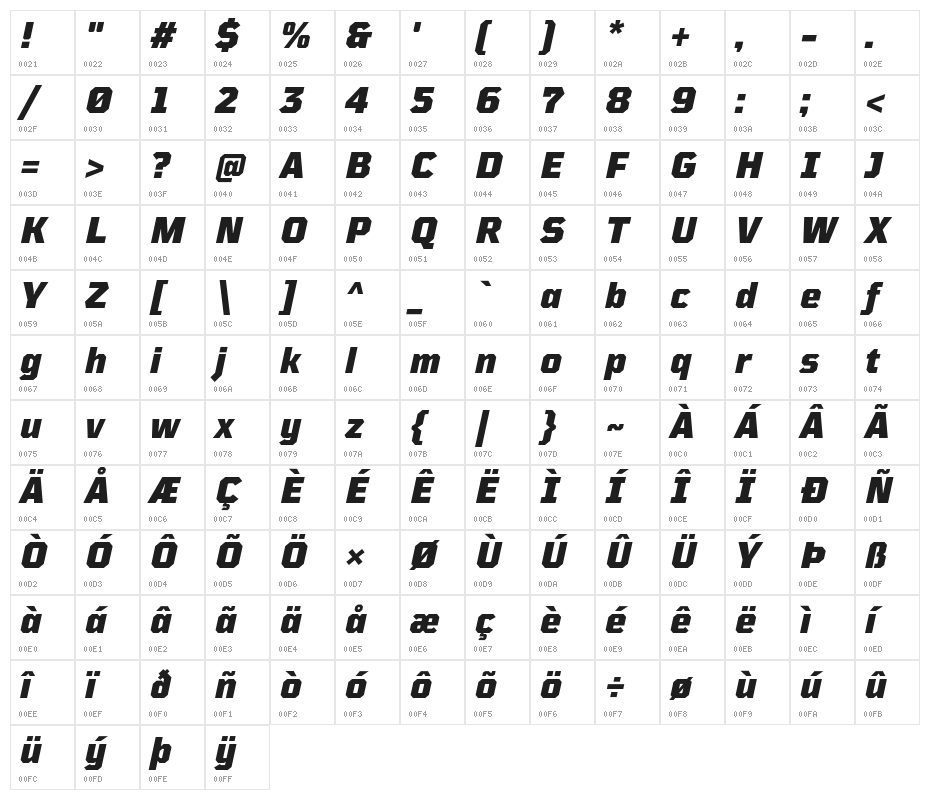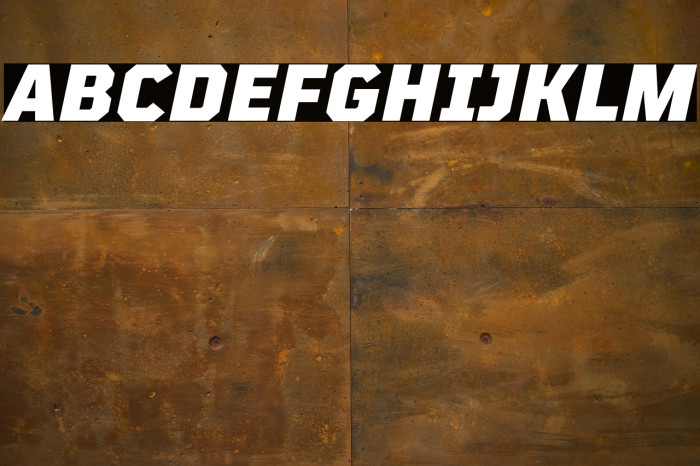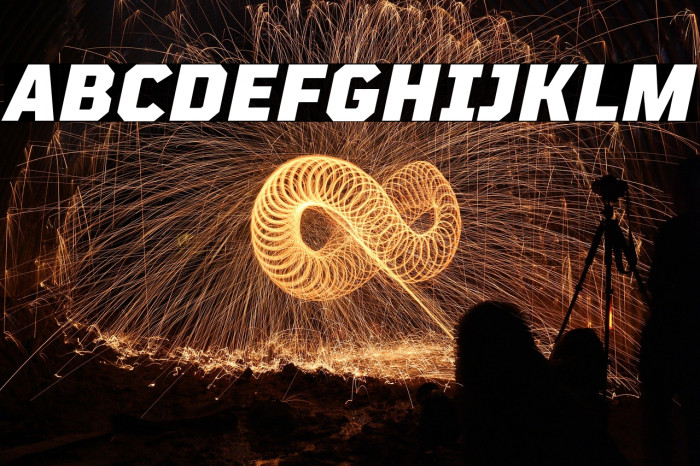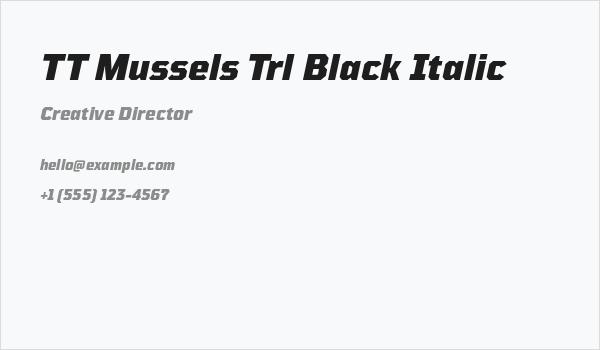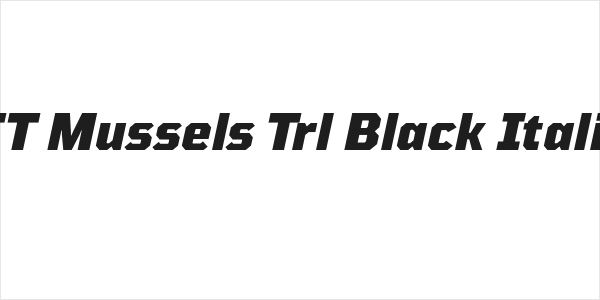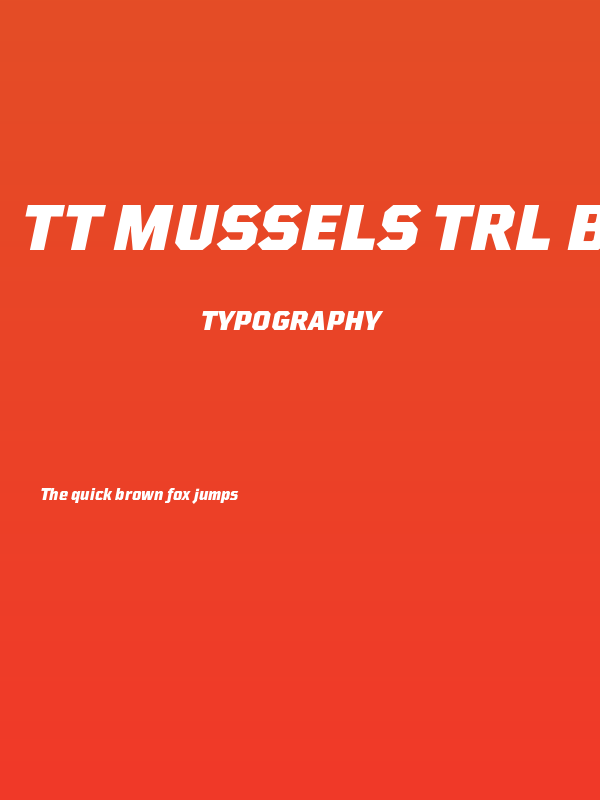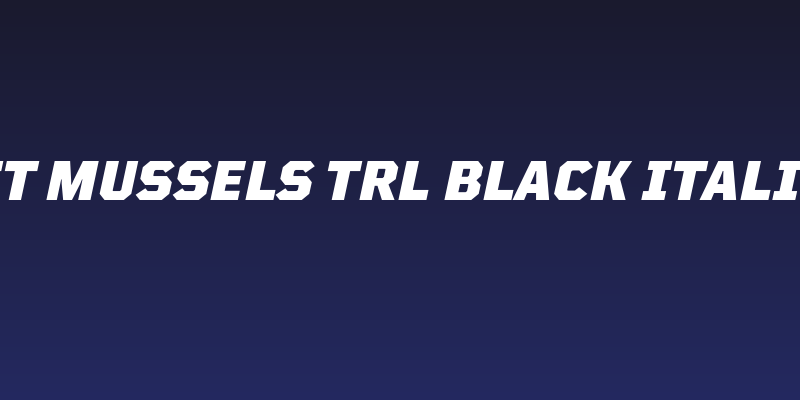
TT Mussels Trl Black Italic Font
TT Mussels Trl Black Italic Description
This font features a bold and dynamic design with a strong italic slant, giving it a sense of movement and energy. The characters are robust and angular, with sharp edges and a geometric structure that conveys a modern and assertive aesthetic. The uppercase and lowercase letters maintain a consistent style, with the lowercase letters slightly more condensed. The numerals are equally bold, ensuring readability and impact. Special characters are designed to match the overall bold and angular theme, making them stand out effectively.
| Proposed Projects | Ideal for sports branding, dynamic posters, modern logos, and impactful headlines. |